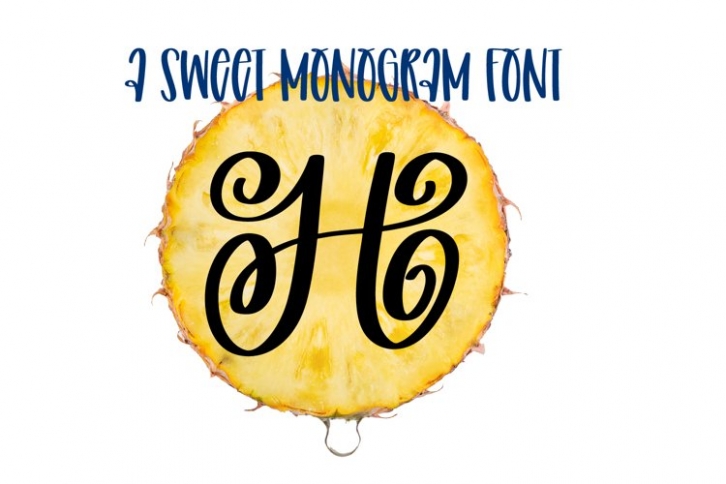
A Swirly & Sweet Monogram is a great font that was designed by plusstore. Imagine the amount of combinations you can create using this font! The archive is 19.88 MB and it was released on July 10, 2021. A Swirly & Sweet Monogram looks beautiful on wedding invitations, greeting cards, logos, posters, labels, t-shirt designs, logos, business cards and is perfect for use in ink or watercolor works, fashion, magazines, packaging and food menus, children's books and more!